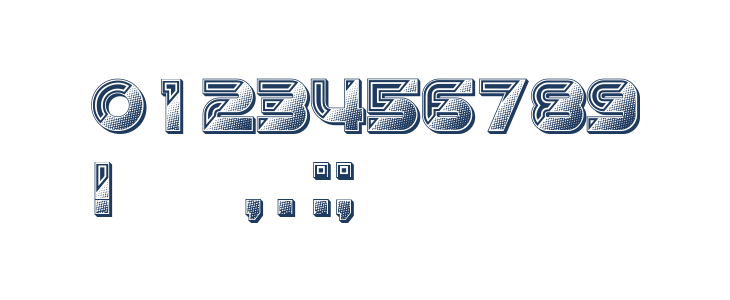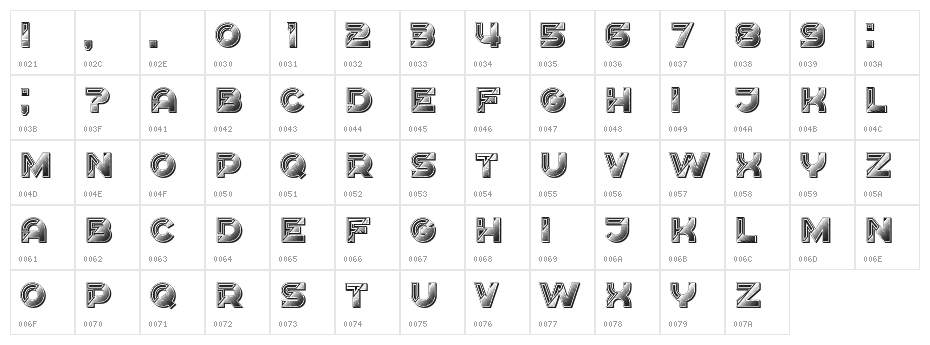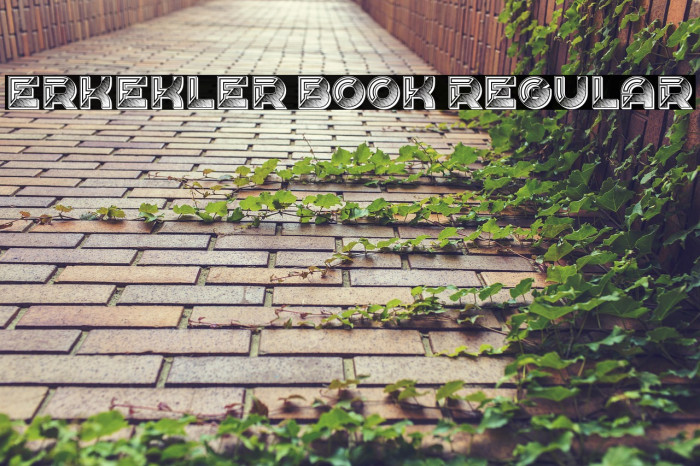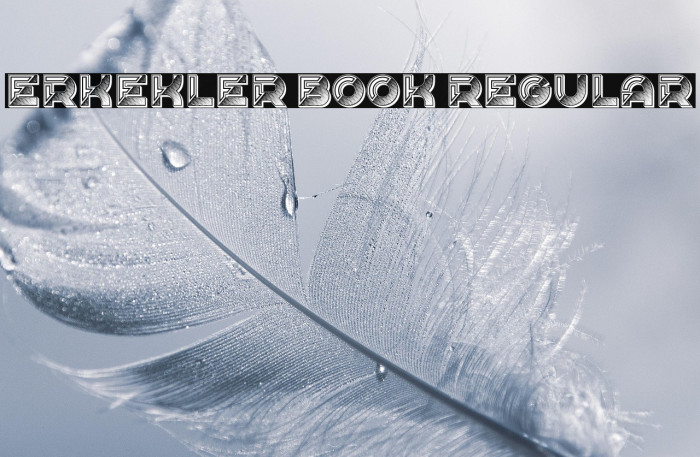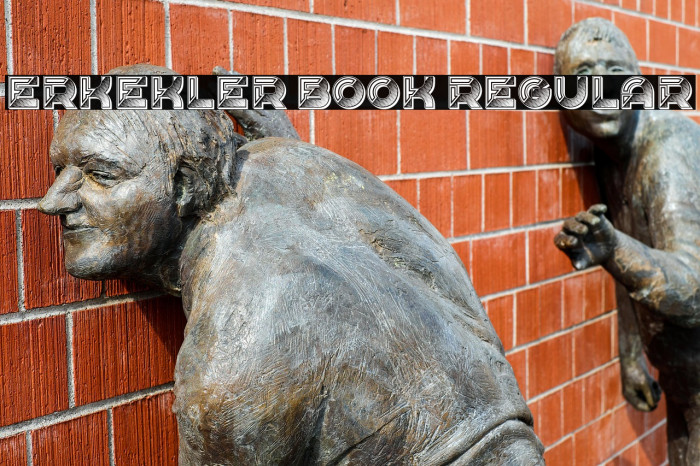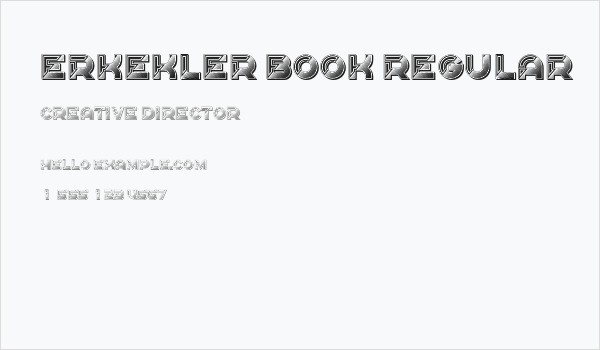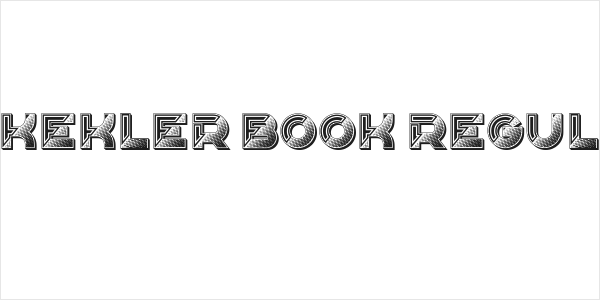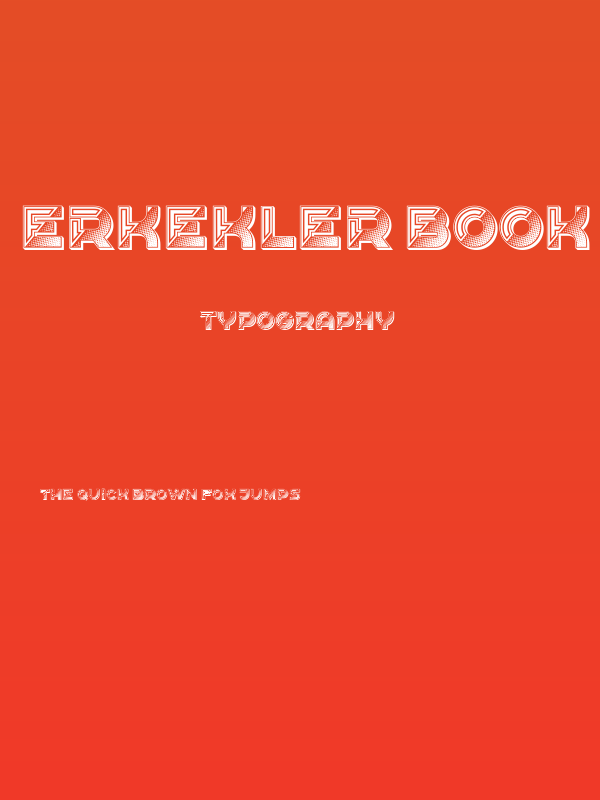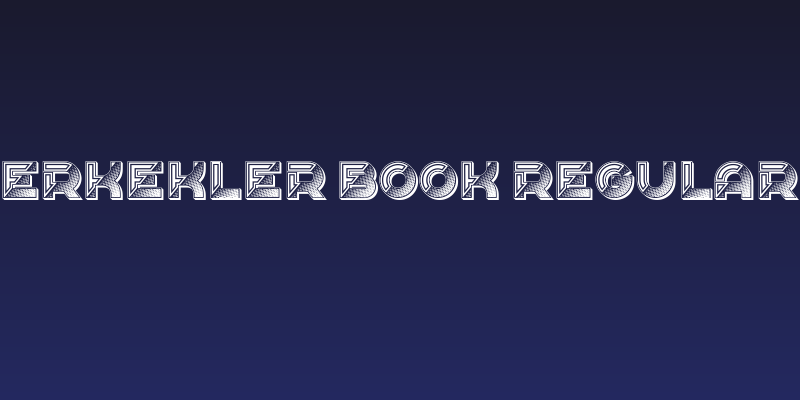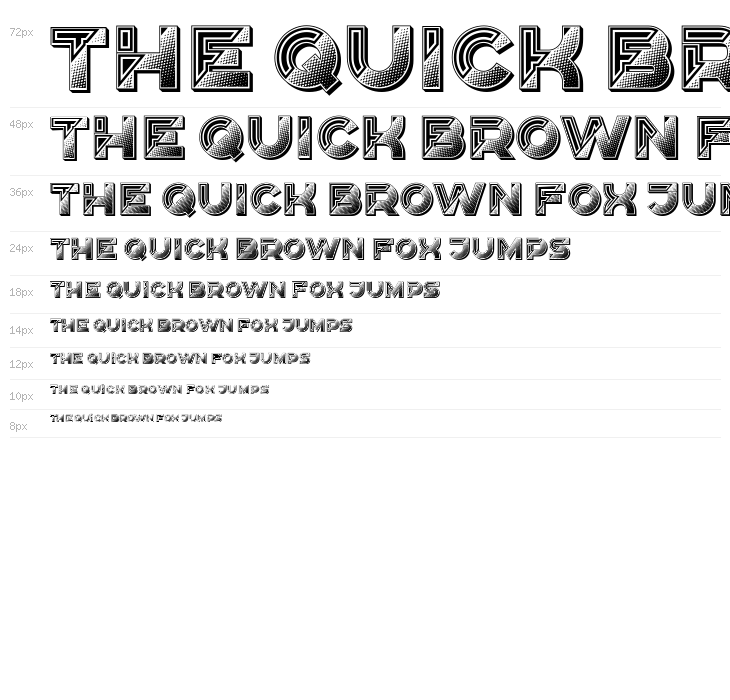
This font features a bold, decorative style with a three-dimensional effect created by intricate shading and dot patterns within each character. The uppercase letters are designed with a strong geometric structure, giving them a solid and impactful appearance. The numbers and special characters follow the same design principles, ensuring consistency throughout. The font's unique style makes it stand out, with a vintage yet modern feel that can capture attention in various design contexts.
| Proposed Projects | Ideal for poster designs, retro-themed branding, eye-catching headlines, and creative packaging. |